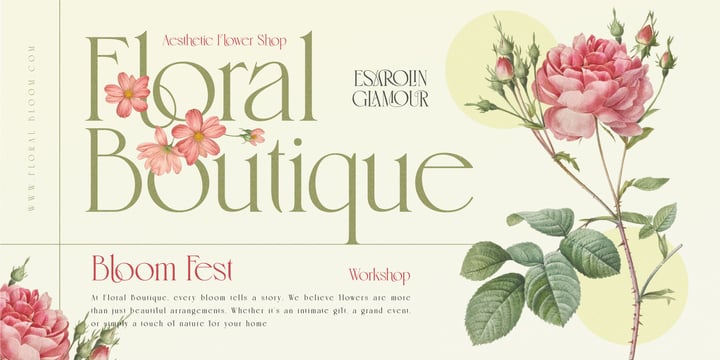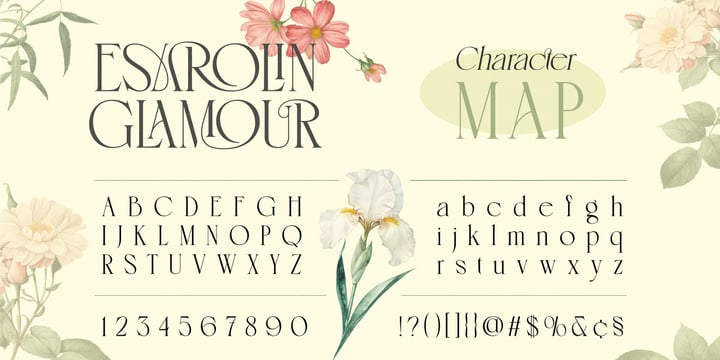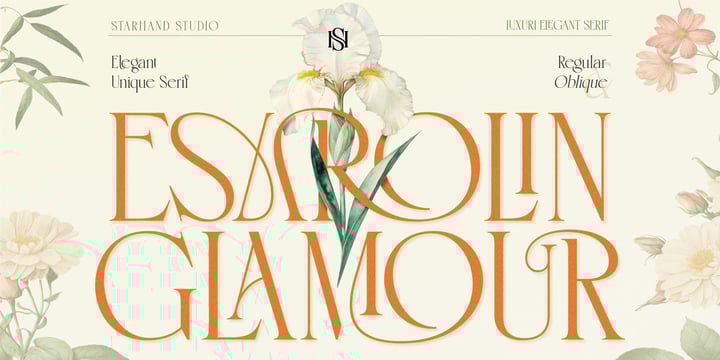
Kadek Sisnu Sunaya Santika
Kadek Sisnu Sunaya Santika is the founder and principal designer at Starhand, leveraging a robust background in graphic design supported by a Bachelor's degree from the Indonesian Institute of Arts (ISI) Denpasar, Bali. His design philosophy emphasizes a steadfast commitment to aesthetic excellence and technical reliability. Specializing in the creation of sophisticated serif, sans-serif, and script typefaces, his projects are tailored to address complex communication challenges. Through Starhand, he offers designers globally typefaces that are not only visually stunning but also meticulously engineered for exceptional legibility across all digital and print media.